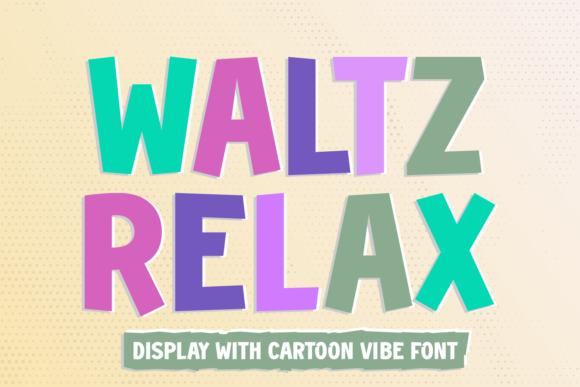
Introducing the perfect font for all vintage t-shirt enthusiasts - Waltz Relax Font! Created by Wankriss, this font family is sure to impress with its fun, thick lettered and cartoon styled design. It's the perfect addition to any design project that requires a bold and playful touch.
Waltz Relax is a versatile display font that can be used for a range of purposes. Whether you're designing t-shirts, sportswear, logos, advertisements, clothing, or any other creative project, this font is sure to make your work stand out from the crowd.
One of the standout features of this font is its thick lettering, which gives it a bold and eye-catching appearance. This makes it perfect for designs that need to make a statement and grab attention. Its cartoon styled design also adds a touch of playfulness and fun to any project.
In addition to its great design, Waltz Relax is also easy to work with. It comes in a variety of weights and styles, making it a versatile option for any design project. Plus, it's available for download at an affordable price, making it accessible to designers of all skill levels and budgets.